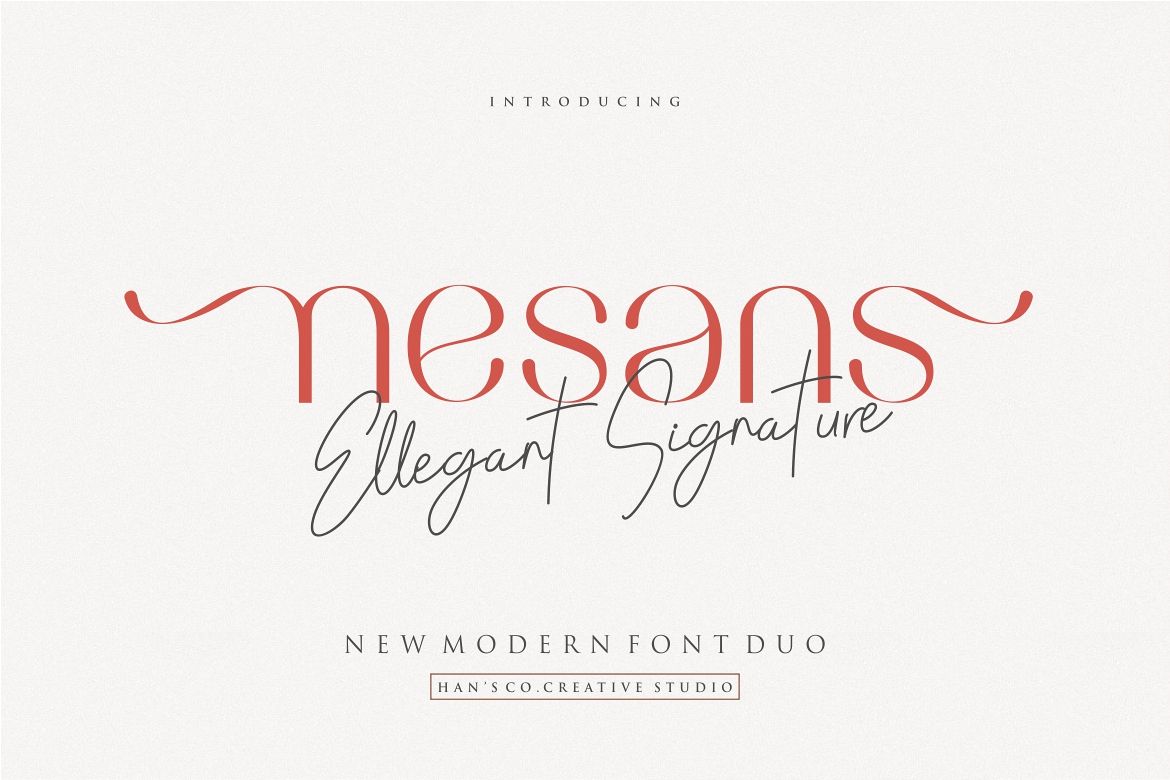
NESANS FONT
Create something elegant and classy designs with a modern touch. Nesans font and Signature give a sleek, elegant look for logos, business card, wedding invitations, quotes, advertisements, and more. Nesans is a versatile typeface that's full of character and one you'll come back to time and again. Create something beautiful today with Nesans.